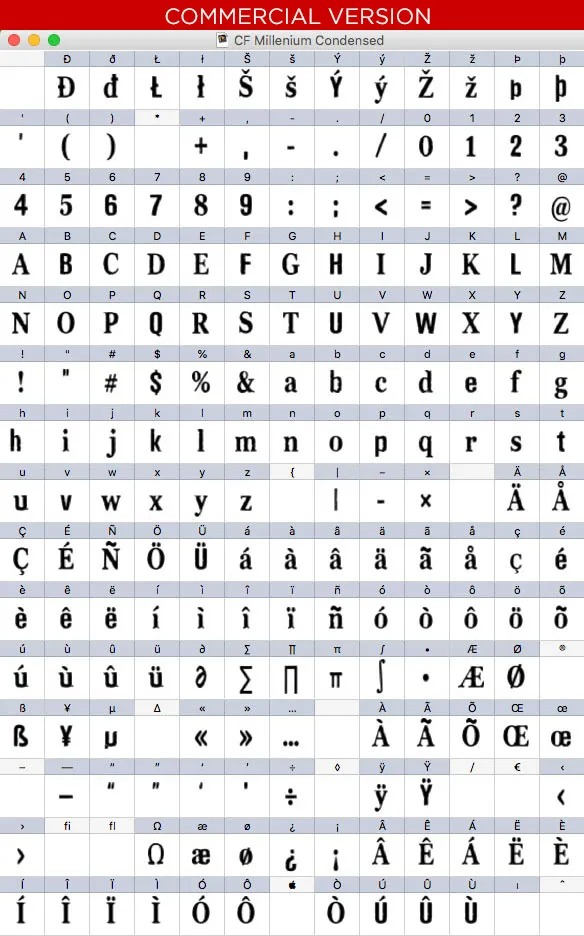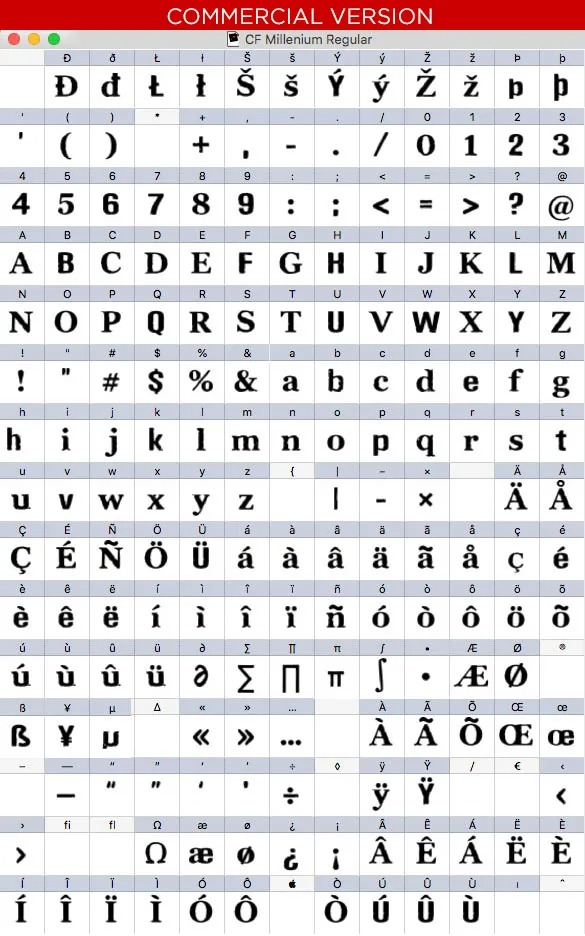
CF Millenium Display Font
This font is made as neatly as possible with great attention to detail. CF Millenium is very suitable to be used in making quotes, headlines, logos, labels, lettering, and packaging.